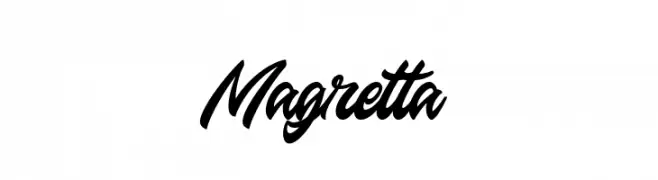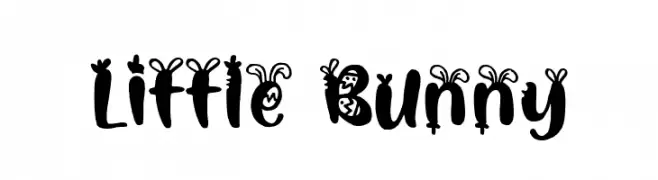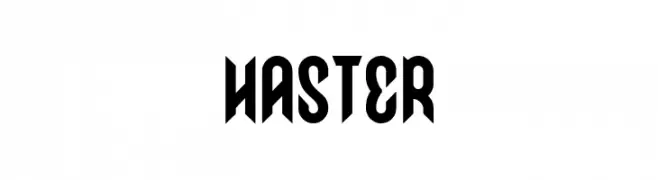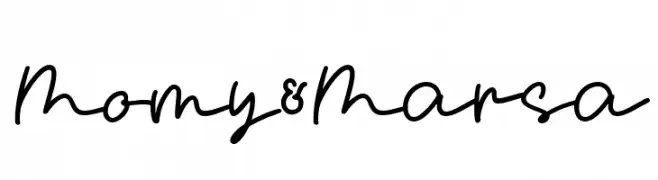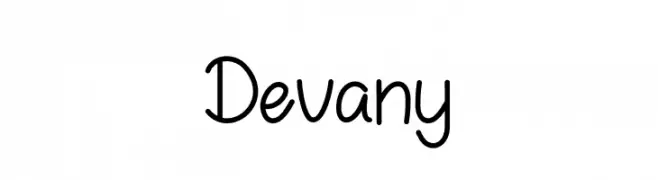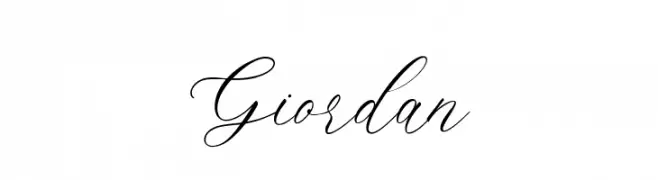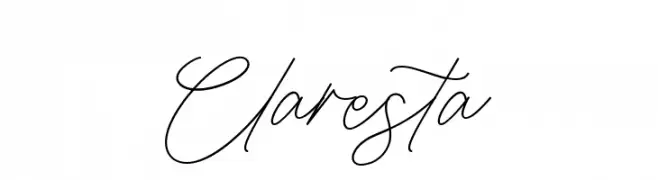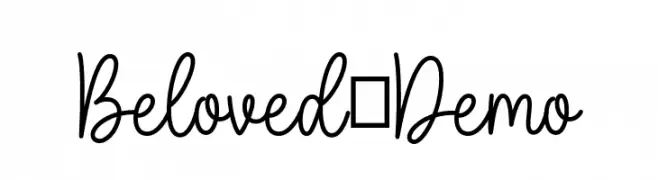
A bold, flowing script font with a dynamic, handwritten style.
A festive, decorative font with Christmas-themed patterns and bold, rounded characters.
A playful, bunny-themed decorative font with bold, rounded characters.
A bold, angular font with geometric shapes and sharp edges.
A cursive, handwritten-style font with smooth, connected letters.
A playful, rounded font with a friendly and whimsical style.
An elegant script font with fluid, cursive strokes and sophisticated design.
A playful, spooky font with monster-like characteristics and skull motifs.
A playful, casual handwritten font with fluid, connected strokes.
A fluid and elegant script font with connected cursive strokes.